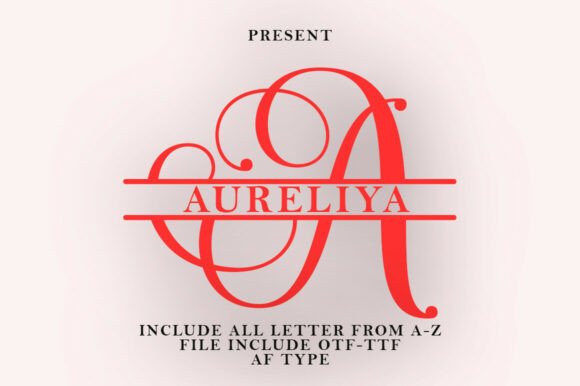
Aureliya Font: The Charming Decorative Font for Your Creative Projects
Are you a designer or crafter looking for a unique and authentic font to elevate your creative projects? Look no further than Aureliya Font, a charming decorative font that is sure to capture your heart. With its beautiful and elegant design, Aureliya Font is perfect for creating stunning invitations, gorgeous stationery artwork, eye-catching social media posts, and cute greeting cards.
The Authentic Feel of Aureliya Font
Aureliya Font boasts an authentic feel that is reminiscent of traditional calligraphy. Its intricate and delicate design makes it perfect for projects that require a touch of elegance and sophistication. Whether you’re creating a wedding invitation, a social media post, or a greeting card, Aureliya Font is sure to add a touch of charm and personality to your design.
Uses of Aureliya Font
Aureliya Font is a versatile font that can be used for a variety of creative projects. Here are some ideas to get you started:
- Invitations: Create beautiful wedding invitations, birthday invitations, or any other type of invitation with Aureliya Font. Its elegant design makes it perfect for formal and informal events.
- Stationery Artwork: Use Aureliya Font to create gorgeous stationery artwork, including letterheads, journals, and planners.
- Social Media Posts: Make your social media posts stand out with Aureliya Font. Its decorative design is sure to grab the attention of your followers and make your posts more engaging.
- Greeting Cards: Create cute and personalized greeting cards for special occasions, such as birthdays, anniversaries, and holidays.
Features of Aureliya Font
Aureliya Font comes with a range of features that make it a great choice for designers and crafters. Here are some of its key features:
- Decorative Design: Aureliya Font boasts a beautiful and decorative design that is sure to add a touch of elegance to your projects.
- Authentic Feel: Its authentic feel makes it perfect for projects that require a traditional and classic look.
- Versatile: Aureliya Font can be used for a variety of creative projects, from invitations to social media posts.
Tips for Using Aureliya Font
Here are some tips for using Aureliya Font in your creative projects:
- Pair it with Other Fonts: Pair Aureliya Font with other fonts to create a unique and interesting design.
- Experiment with Colors: Experiment with different colors to find the perfect combination for your project.
- Use it for Headings: Use Aureliya Font for headings and titles to add a touch of elegance to your design.
- Keep it Simple: Keep your design simple and clean to let Aureliya Font shine.
Aureliya Font is a charming decorative font that is perfect for designers and crafters looking for a unique and authentic font for their creative projects. With its beautiful and elegant design, Aureliya Font is sure to add a touch of charm and personality to your designs. Whether you’re creating invitations, stationery artwork, social media posts, or greeting cards, Aureliya Font is a great choice. So why not give it a try and see what amazing designs you can create?
Aureliya Monogram: A Special Feature
Aureliya Font also comes with a special feature – Aureliya Monogram. This charming monogram is perfect for adding a touch of elegance to your designs. You can use it to create beautiful monograms, logos, and icons.
In conclusion, Aureliya Font is a beautiful and charming decorative font that is perfect for designers and crafters. Its authentic feel, decorative design, and versatility make it a great choice for a variety of creative projects. So why not give it a try and see what amazing designs you can create?